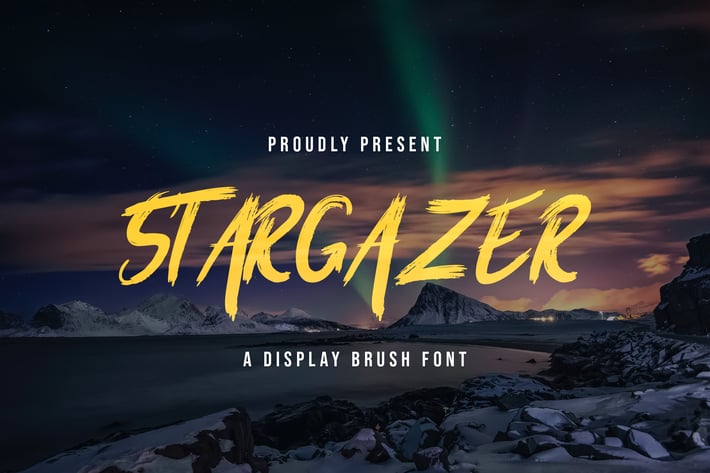
Stargazer - Creative Brush Font
Introducing Stargazer, is a Creative Brush Font has many purpose and suitable for graffiti, urban street, workouts, gym items, classic modern, logotype, advertising and much more
- Available Ligatures and Alternates